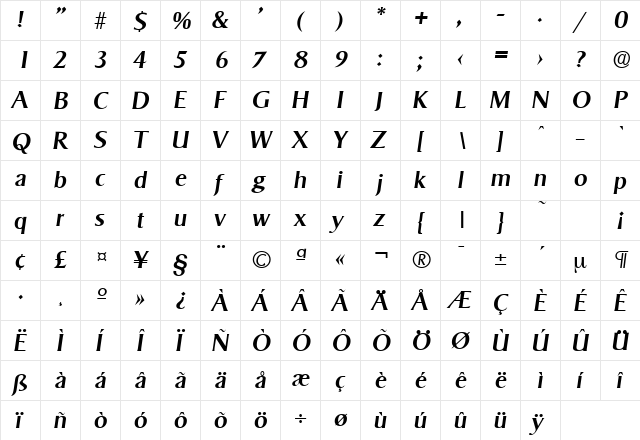
Sigvar-Serial-Medium RegularItalic
Design Context for Sigvar-Serial-Medium Typeface
Sigvar-Serial-Medium takes a measured approach to typography — its balanced proportions and neutral character make it a reliable workhorse for both digital and print work. Its italic angle brings a sense of urgency and motion to the letterforms.
Pro Tip: Try Sigvar-Serial-Medium for annotation and caption copy alongside an upright companion — the contrast in angle creates a dynamic but ordered typographic system.